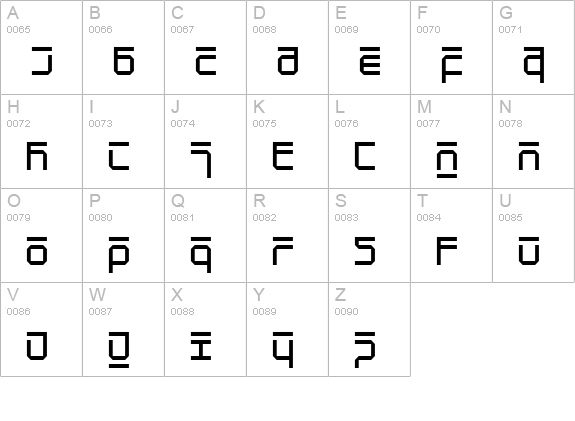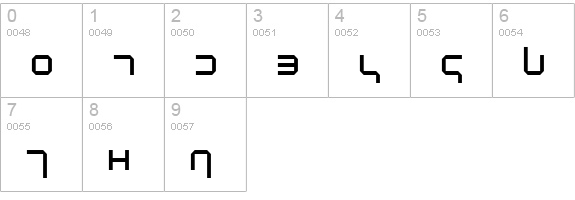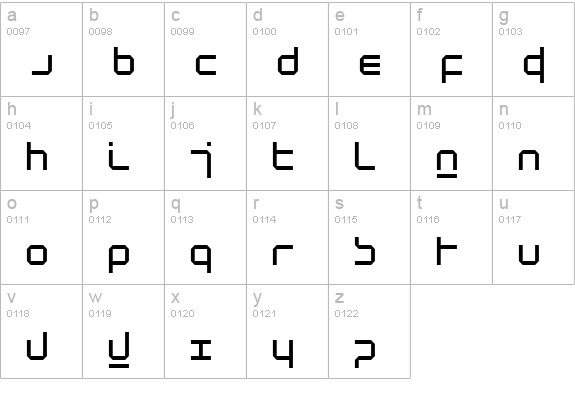
NewAlphabetThree Font Details
Introducing NewAlphabetThree font, a modern and stylish typeface that effortlessly blends elegance with a touch of playfulness. This versatile font is perfect for a wide range of design projects, from branding to social media graphics and everything in between. Featuring sleek lines and a unique style, NewAlphabetThree font is sure to make your text stand out and grab attention. Whether you're looking to add a contemporary flair to your designs or simply want to experiment with a new font, NewAlphabetThree is the perfect choice. Best of all, NewAlphabetThree font is available for free download at FontsMarket.com. So go ahead and elevate your designs with this stunning font today!